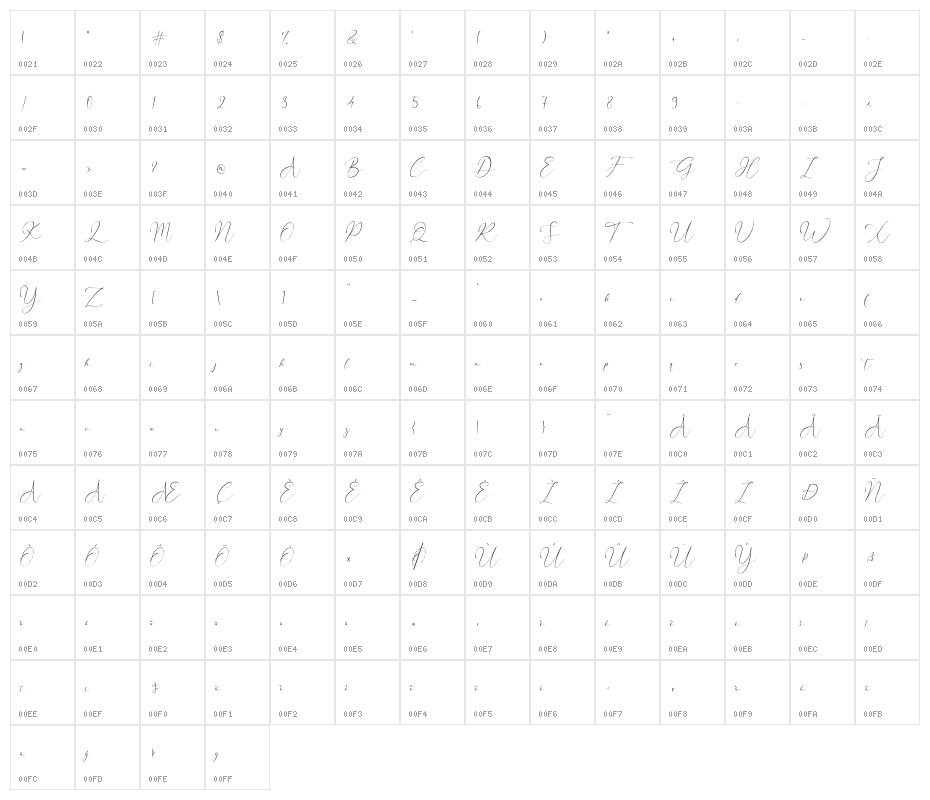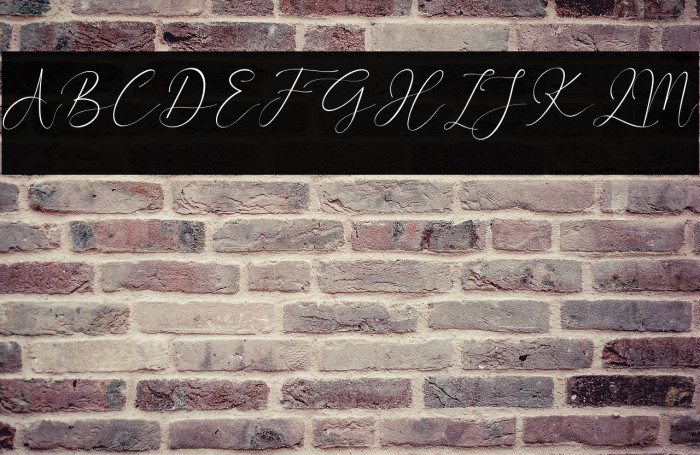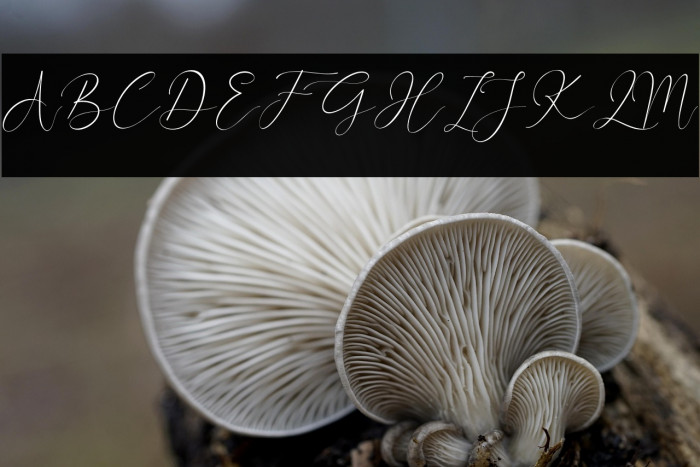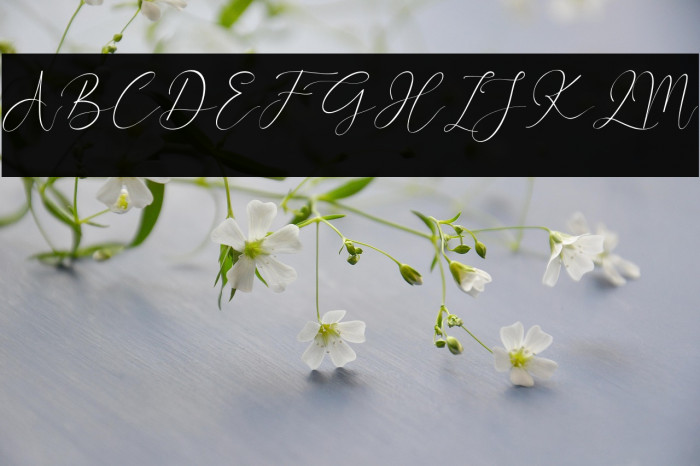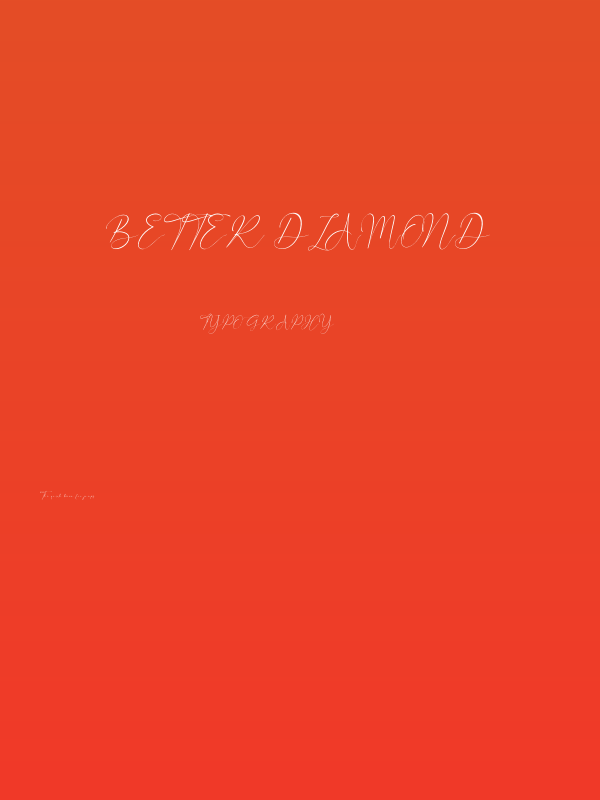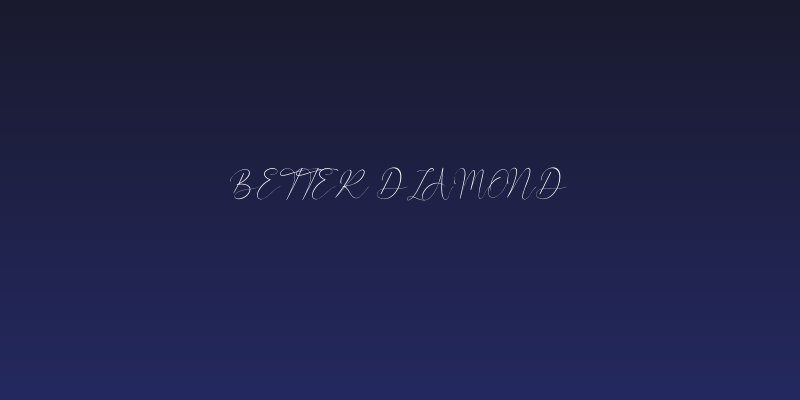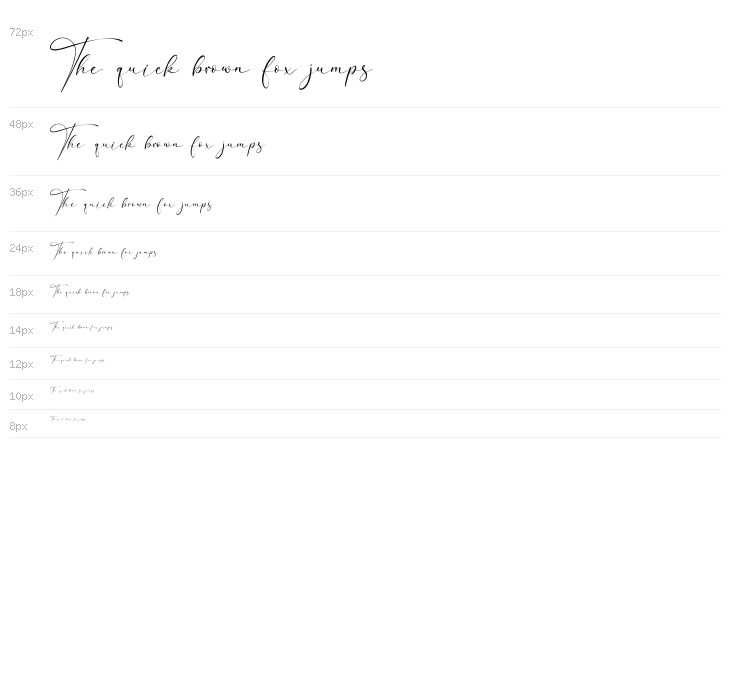
Better Diamond Font
Better Diamond Description
This elegant script font features a flowing, cursive style with delicate, thin strokes and graceful curves. The uppercase letters are ornate and sweeping, while the lowercase characters maintain a consistent, fluid motion. The numbers and special characters complement the overall aesthetic with their refined and sophisticated appearance. This font exudes a sense of elegance and luxury, making it ideal for formal invitations, branding, and high-end product packaging. Its intricate design and attention to detail make it stand out as a decorative choice for projects requiring a touch of sophistication.
| Use Case | Invitations, Branding, Packaging |
| Proposed Projects | Ideal for wedding invitations, luxury branding, high-end product packaging, and decorative projects. |